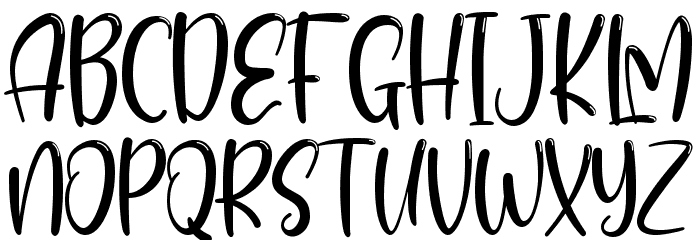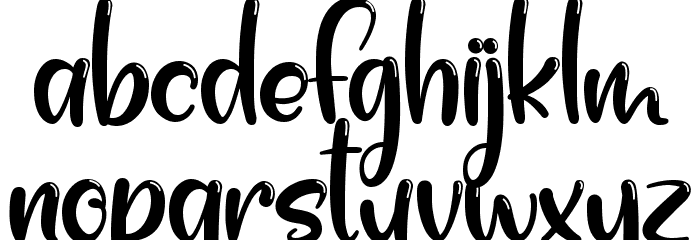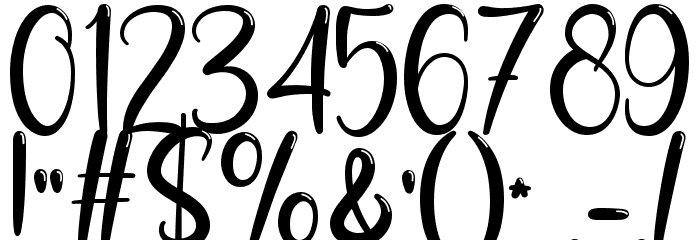
Summer Shine Font
A playful and energetic handwritten font with a casual and friendly appearance, featuring smooth curves and a lively flow.
Playful and energetic handwritten font.
- Proposed Projects: Greeting cards, invitations, playful branding.
- Overall Style: Casual and friendly
- Use Case: Headlines, Invitations, Greeting cards